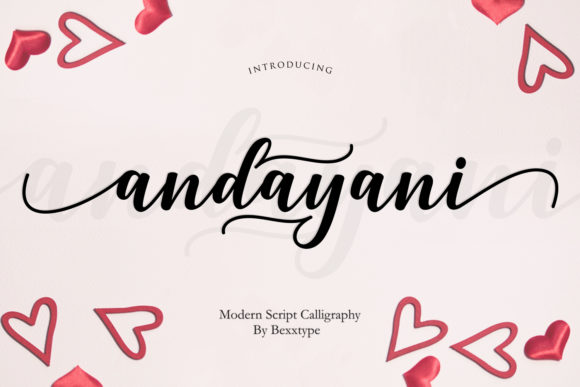
Introducing Andayani Script Font: Elevate Your Designs with Unique Flair
Are you tired of using the same old fonts in your designs? Do you want to add a touch of elegance and sophistication to your text? Look no further than Andayani Script Font, a modern script font that features flowing characters and a unique style that’s sure to make your text stand out from the crowd.
What is Andayani Script Font?
Andayani Script Font is a carefully crafted font designed to add a touch of luxury and refinement to your designs. Its flowing characters and modern style make it perfect for a wide range of applications, from wedding invitations and branding materials to social media graphics and website headers.
Key Features of Andayani Script Font
- Unique and Modern Style: Andayani Script Font features a distinctive and contemporary style that’s sure to grab attention.
- Flowing Characters: The font’s flowing characters create a sense of movement and fluidity, adding a touch of elegance to your text.
- Highly Legible: Despite its ornate style, Andayani Script Font is highly legible, making it perfect for use in a wide range of applications.
- Multilingual Support: The font supports multiple languages, making it a great choice for designers who work with clients from around the world.
Uses for Andayani Script Font
Andayani Script Font is a versatile font that can be used in a wide range of applications, including:
- Wedding Invitations: Add a touch of elegance and sophistication to your wedding invitations with Andayani Script Font.
- Branding Materials: Use Andayani Script Font to create unique and memorable branding materials, such as logos, business cards, and letterheads.
- Social Media Graphics: Add a touch of style and sophistication to your social media graphics with Andayani Script Font.
- Website Headers: Use Andayani Script Font to create eye-catching website headers that grab attention and draw visitors in.
Why Choose Andayani Script Font?
With so many fonts to choose from, why should you choose Andayani Script Font? Here are just a few reasons:
- Unique Style: Andayani Script Font features a unique and modern style that’s sure to make your text stand out from the crowd.
- High-Quality Design: The font is carefully crafted with attention to detail, ensuring a high-quality design that’s both elegant and sophisticated.
Tips for Using Andayani Script Font
Here are a few tips for getting the most out of Andayani Script Font:
- Use it Sparingly: Andayani Script Font is a bold and eye-catching font, so use it sparingly to avoid overwhelming your design.
- Pair it with a Simple Font: Pair Andayani Script Font with a simple font to create a striking contrast and add visual interest to your design.
- Experiment with Colors: Andayani Script Font looks great in a range of colors, so experiment with different colors to find the one that works best for your design.
Andayani Script Font is a unique and modern script font that’s sure to elevate your designs and make your text stand out from the crowd. With its flowing characters, highly legible design, and multilingual support, it’s the perfect choice for designers and crafters who want to add a touch of elegance and sophistication to their work. So why wait? Download Andayani Script Font today and start creating stunning designs that grab attention and leave a lasting impression.